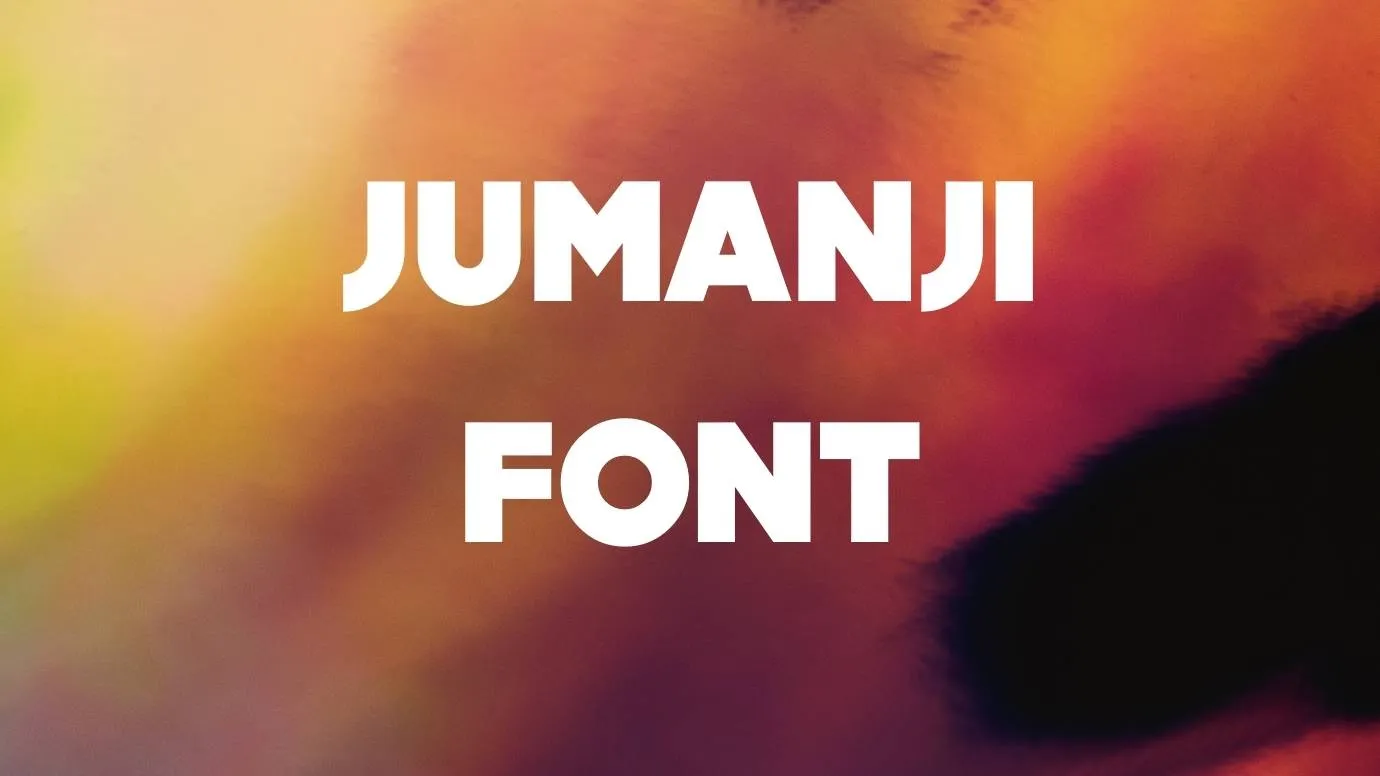
Jumanji Font Family belongs to the display family in the font market. This typeface was developed by Joe Johnston. This marvelous font is a wonderful typeface with a unique style.
Jumanji Font